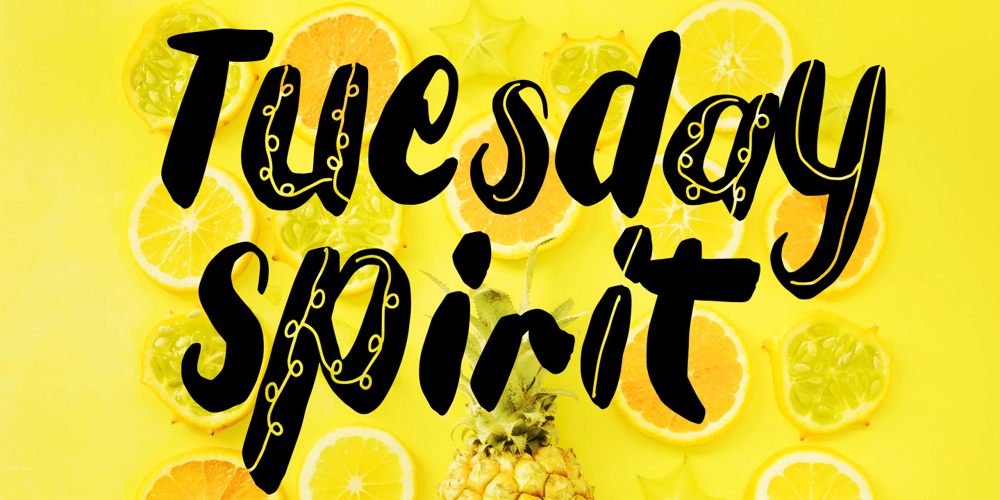
Tuesday Spirit Font Family was designed by Syukur Setiyadi and published by SSI.Scraps. Tuesday Spirit contains 1 styles and family package options. Tuesday Spirit is a unique and fun display font. It will add a charming touch to your upcoming summer crafting projects. This font is PUA encoded which means you can access all of the cute ethnic alternate glyphs with ease!